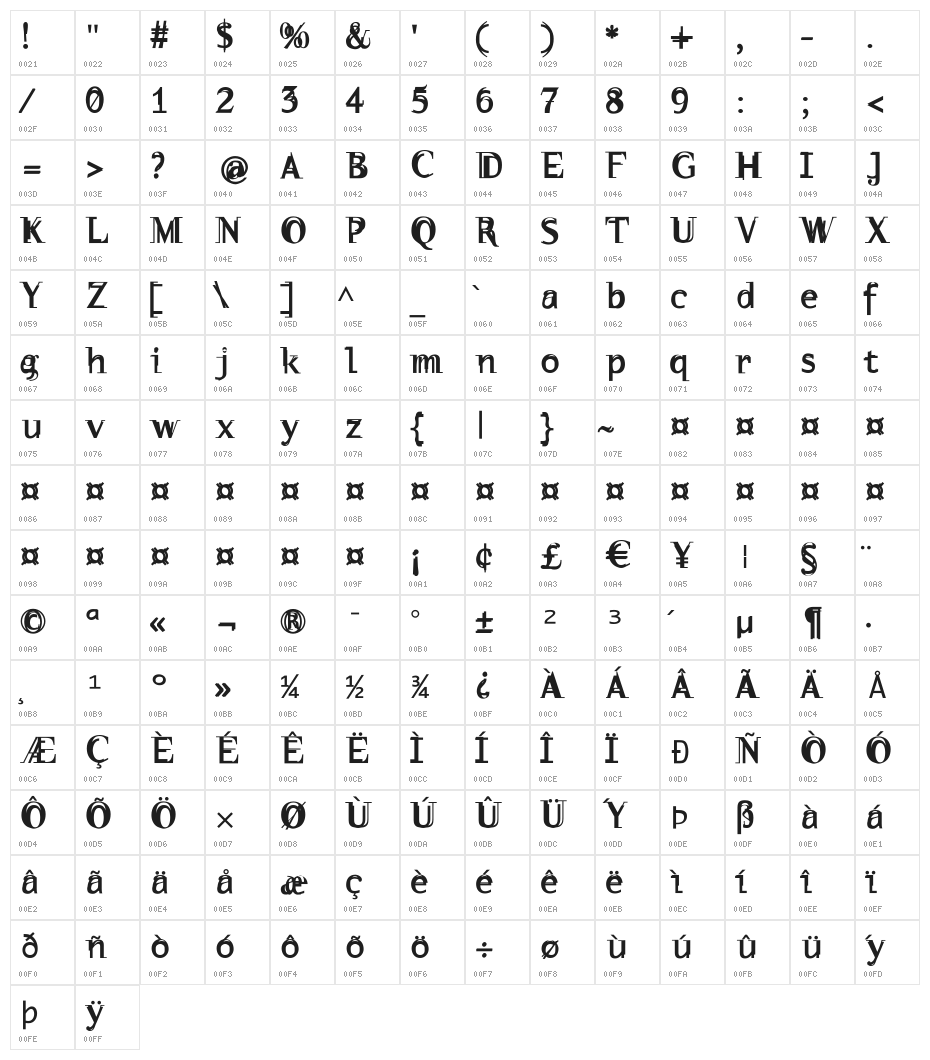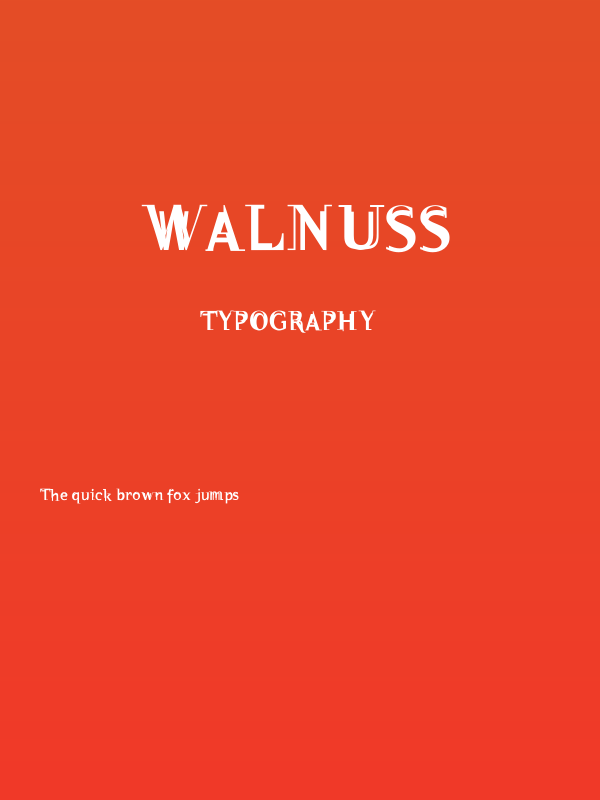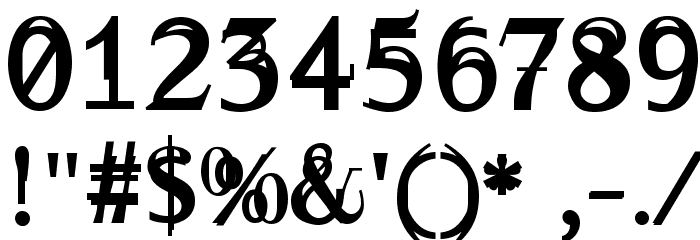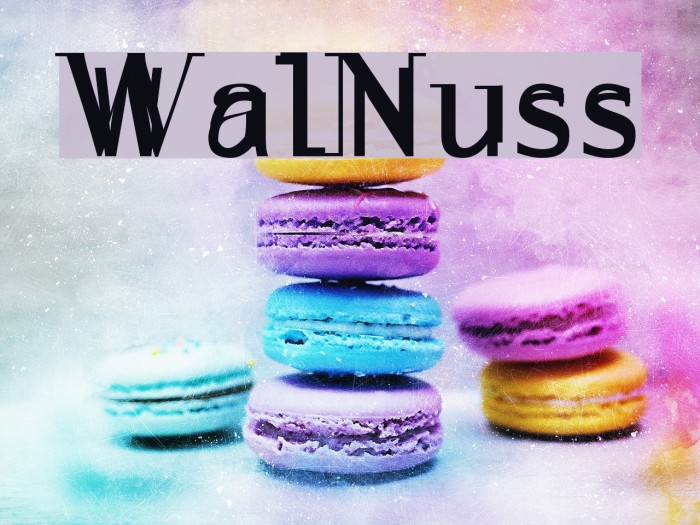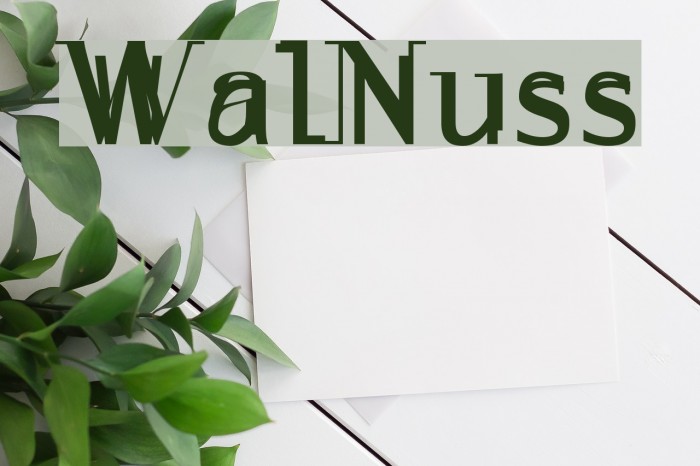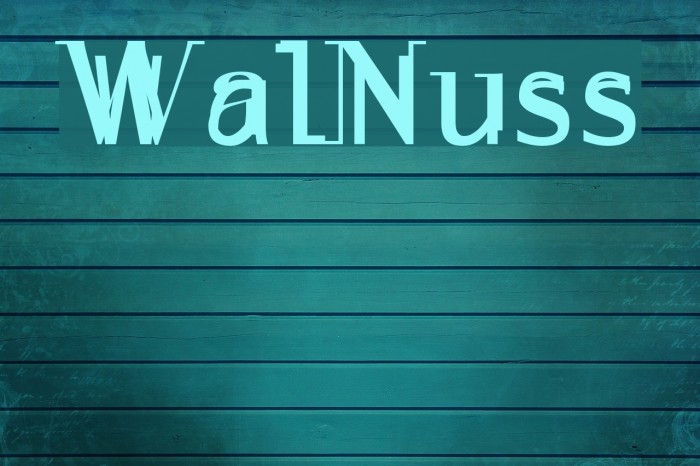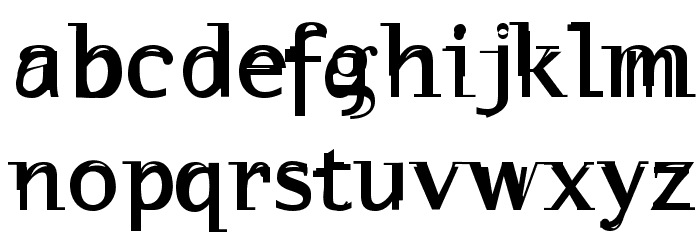
WalNuss Font
WalNuss Description
This font features a bold and dynamic design with a strong presence. The uppercase letters exhibit a unique blend of sharp angles and smooth curves, creating a striking contrast that draws attention. The lowercase letters maintain a consistent style, with some characters having distinctive tails and loops that add to the font's character. The numerals are bold and clear, ensuring readability. Special characters are well-integrated, maintaining the overall aesthetic. This font's boldness and distinctive style make it suitable for impactful designs.
| Proposed Projects | Ideal for branding, poster design, and headlines where a strong visual impact is desired. |